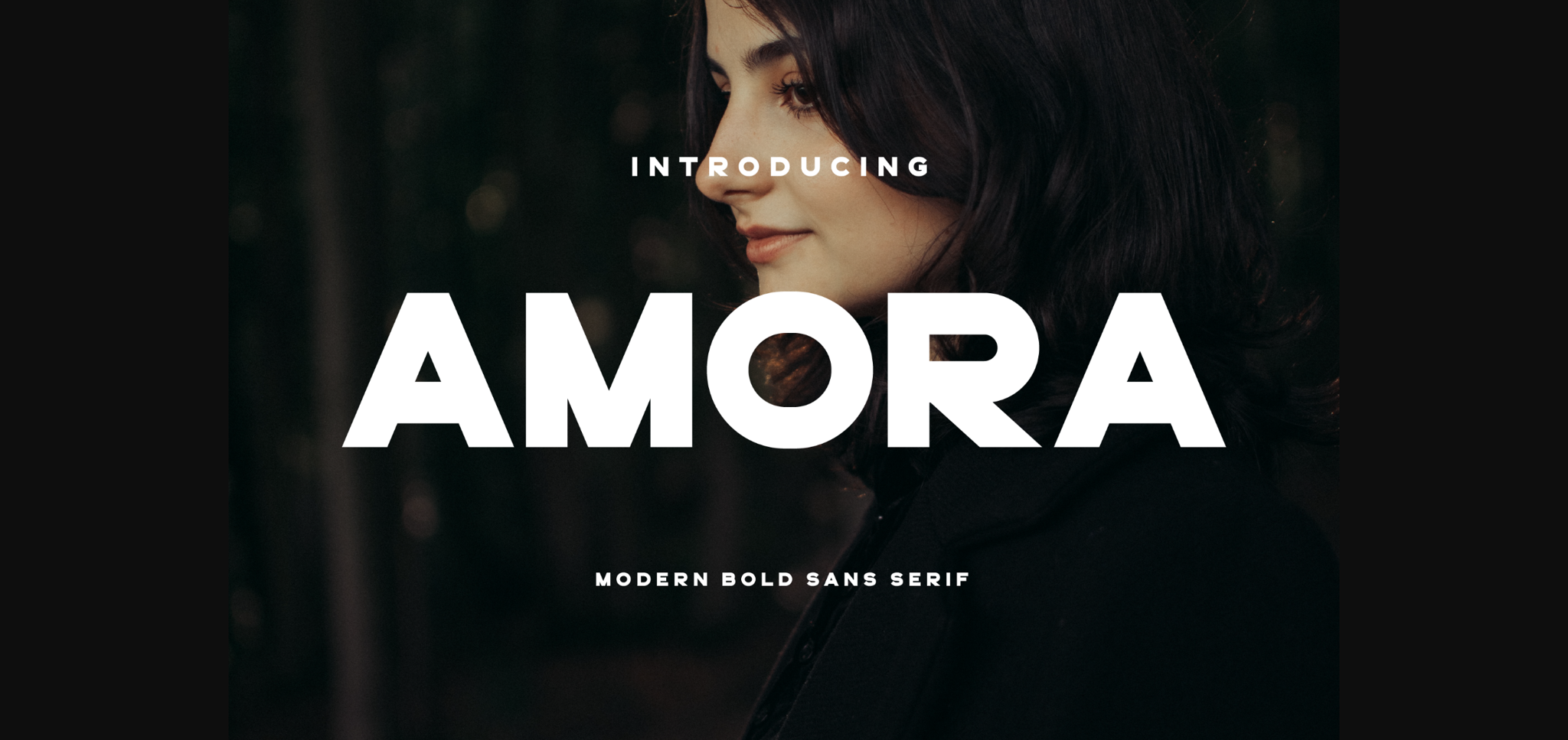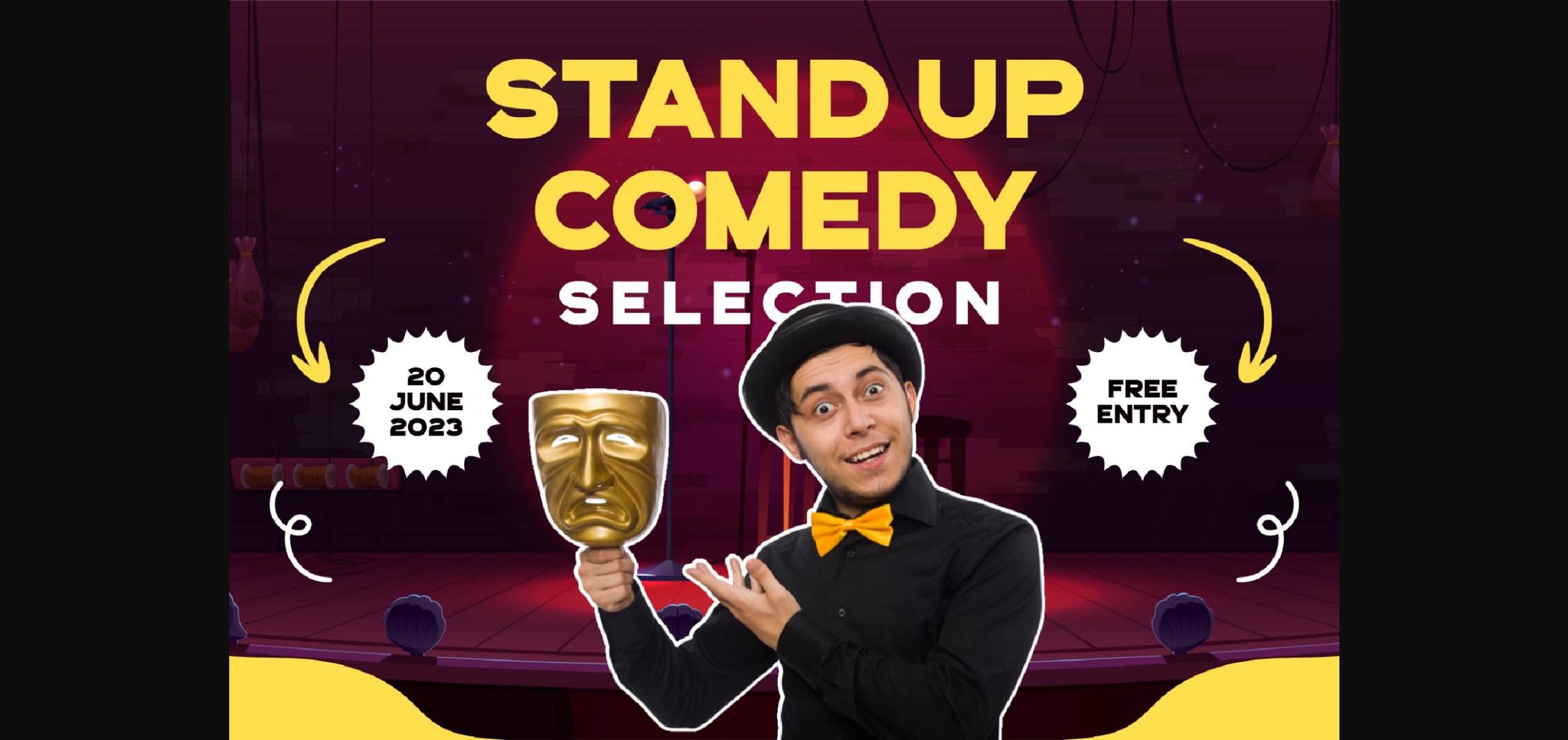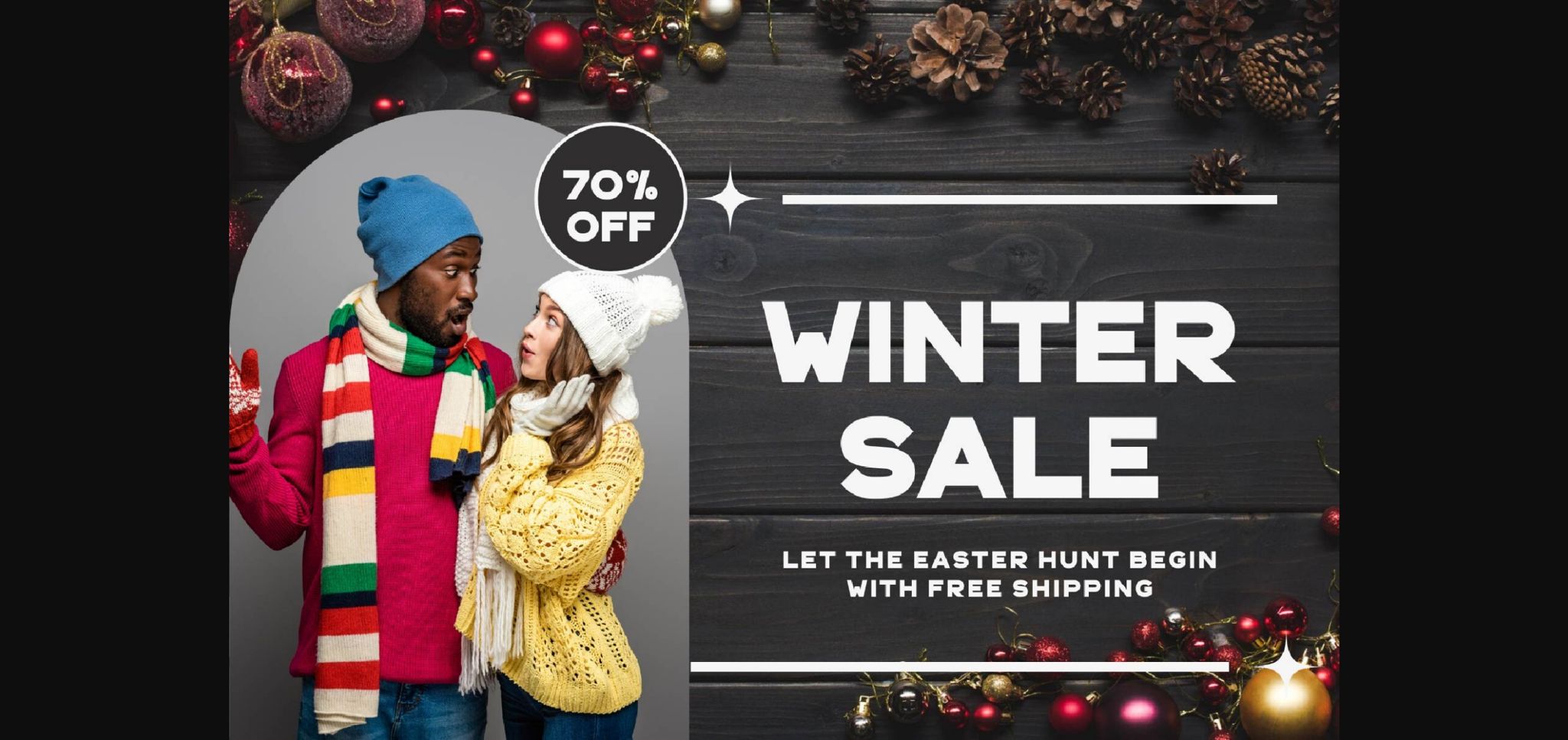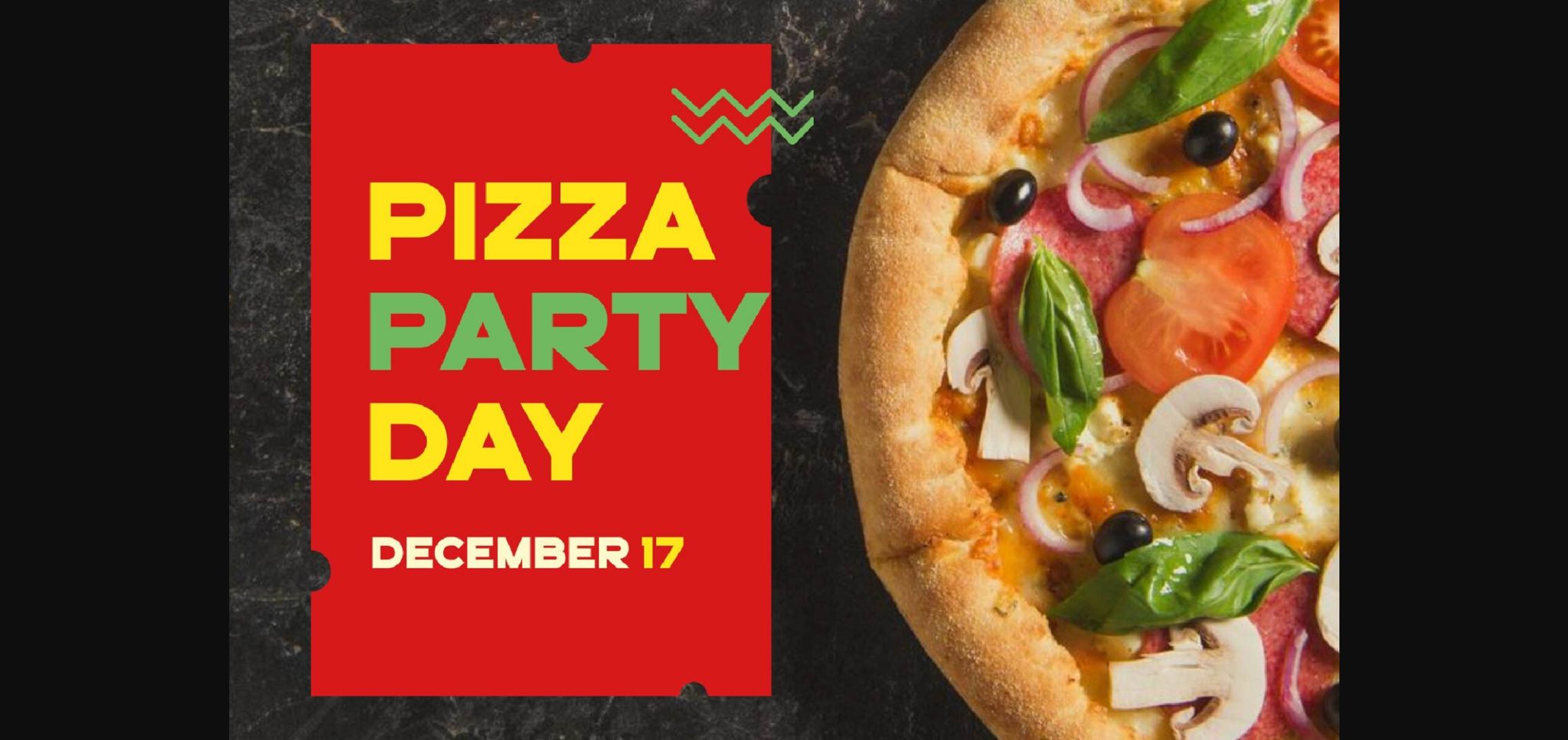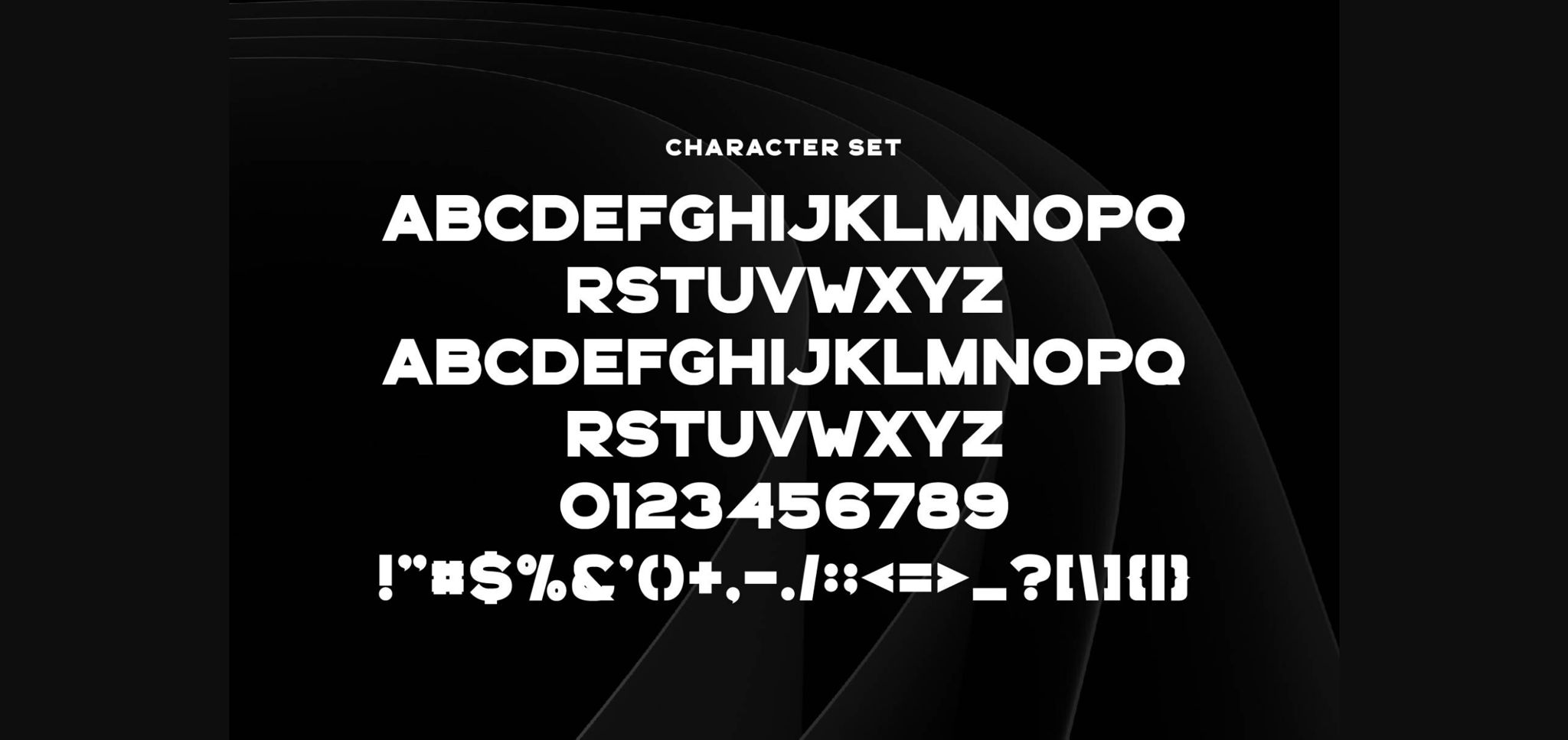
About Amora Font
Amora is a sans serif typeface inspired by the famous minimalist logo perfect for the purposes of designing templates, brochures, videos, advertising branding, logos, invitation, layout design, elegant crafting, beauty design and other.